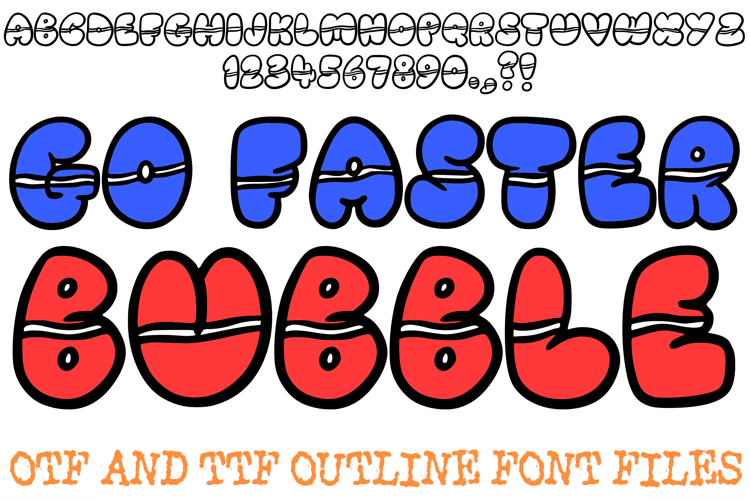
Go Faster Bubble Font Written Chunky Lettering ABC OTF Type
Accelerate your creative projects with the Go Faster Bubble Font! This high-energy display lettering set features bold, rounded characters with a signature "go faster" stripe running through the center of every letter and number. It is the ultimate choice for racing-themed birthday parties, sports branding, energetic stickers, and any project that needs a sense of fun and motion.
The puffy, balloon-like silhouettes are balanced by the sleek horizontal banding, giving your text a unique retro-sport aesthetic. Whether you are designing a logo for a soapbox derby, creating custom track-and-field apparel, or crafting "Fast One" birthday banners, this set provides a professional, artisan-crafted look with a serious need for speed.
Why Your Designs Will Stand Out
Aerodynamic "Fast Stripe" Detail: The central horizontal band creates an instant feeling of speed and retro racing style.
Bold & Puffy Construction: Thick outlines and rounded shapes ensure your headlines remain the center of attention.